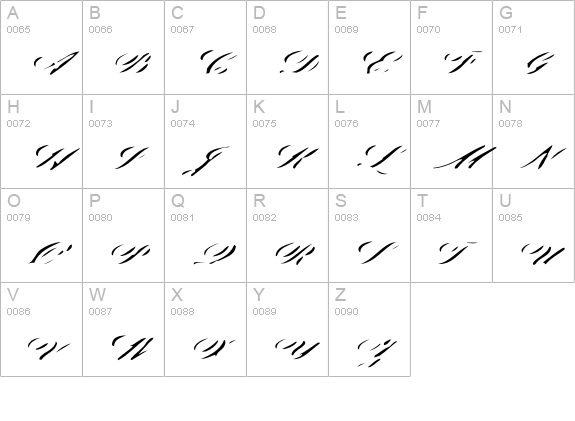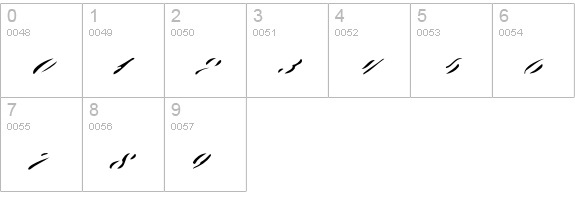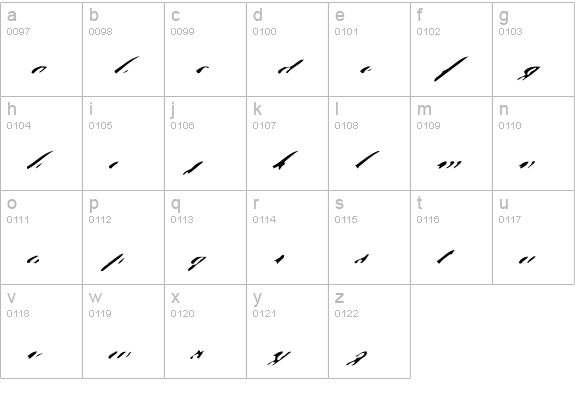
IndelibleVictorian Font Details
Introducing IndelibleVictorian, a captivating and timeless font that effortlessly transports you to the elegance and grandeur of the Victorian era. With its intricate details and ornate flourishes, this font is sure to make a lasting impression on any project. IndelibleVictorian encapsulates the essence of the Victorian aesthetic, combining the grace and refinement of classic typography with a touch of modern flair. Its meticulously crafted letterforms exude sophistication and charm, making it the perfect choice for invitations, book covers, branding, and more. But what sets IndelibleVictorian apart is not just its exquisite design, but also the fact that it is freely available to download at FontsMarket.com. Yes, you read that right – this extraordinary font can be yours at no cost. FontsMarket.com is proud to offer this exclusive opportunity for designers, creatives, and enthusiasts to access this remarkable font and bring their visions to life. Whether you're working on a vintage-inspired project, reviving the nostalgia of bygone eras, or simply seeking to add a touch of class to your designs, IndelibleVictorian is the perfect choice. Its versatility knows no bounds, effortlessly adapting to various contexts and delivering an unmistakable air of sophistication. So why wait? Visit FontsMarket.com today and discover the beauty and elegance of IndelibleVictorian. Download this remarkable font and let its timeless appeal elevate your designs to new heights. With IndelibleVictorian, your creations will leave an indelible mark on all who behold them.